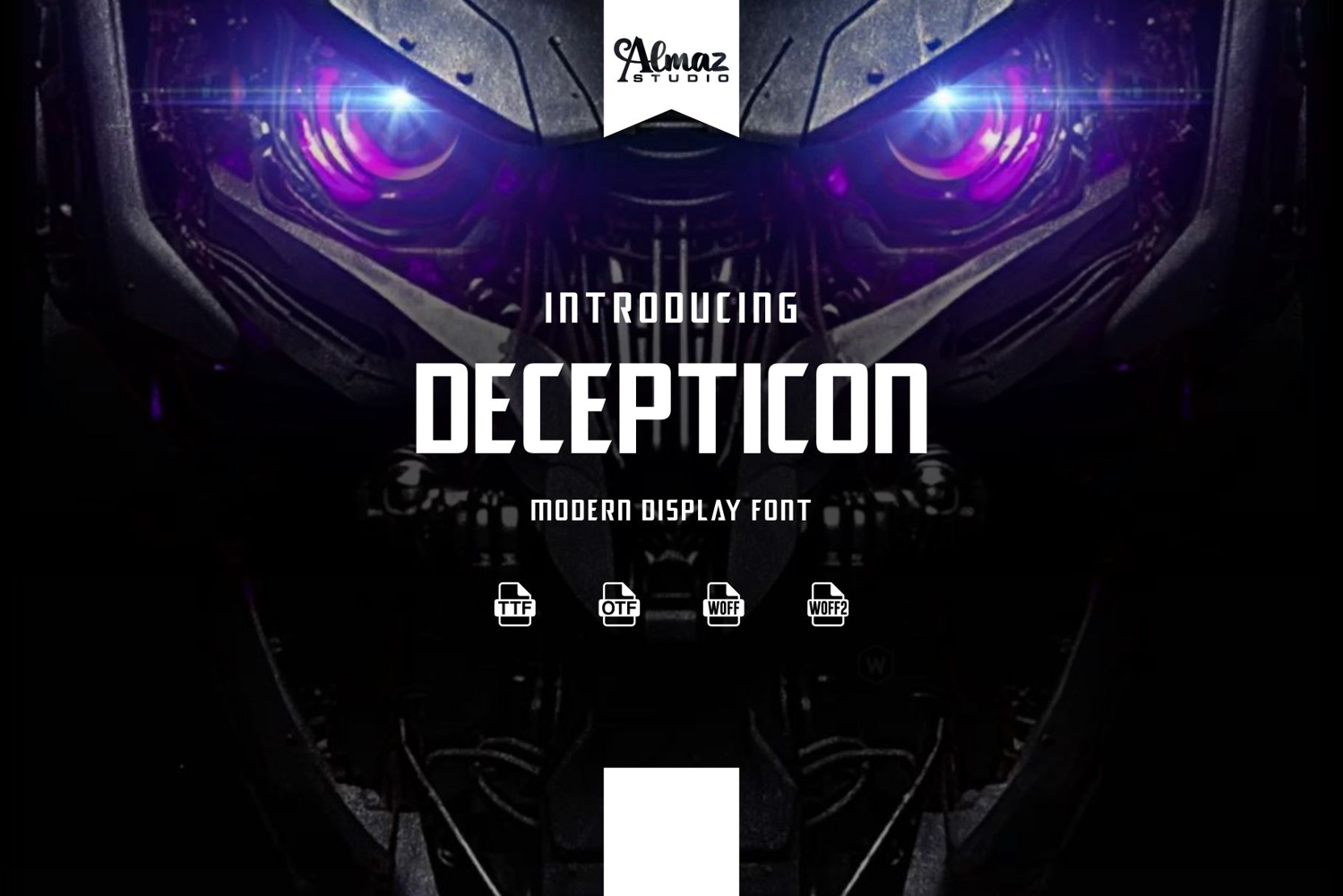
Decepticon
Decepticon is a modern display font with a bold, aggressive, and futuristic style. It features sharp angles, strong geometric shapes, and solid letterforms that convey power, strength, and a high-tech atmosphere. The font delivers a dramatic and commanding presence, making it highly impactful in visual compositions.
Decepticon is ideal for sci-fi themes, gaming designs, movie titles, technology branding, posters, logos, esports, and futuristic promotional materials. Its intense and mechanical character helps create a strong visual identity that feels bold, modern, and authoritative.